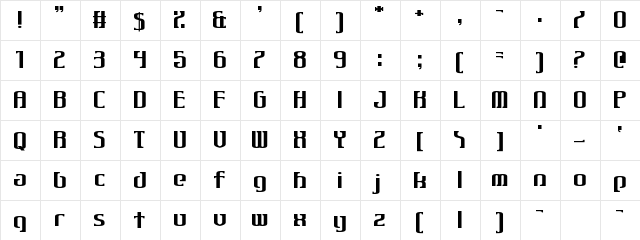
Gothiqua Regular
| Designer | NAL |
Design Context for Gothiqua Typeface
Gothiqua is a composed and adaptable typeface that performs quietly and consistently across a wide range of design contexts.